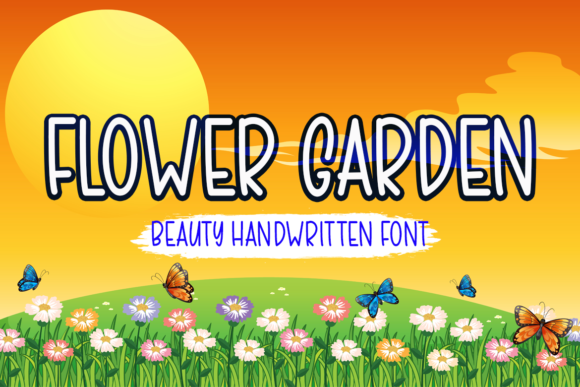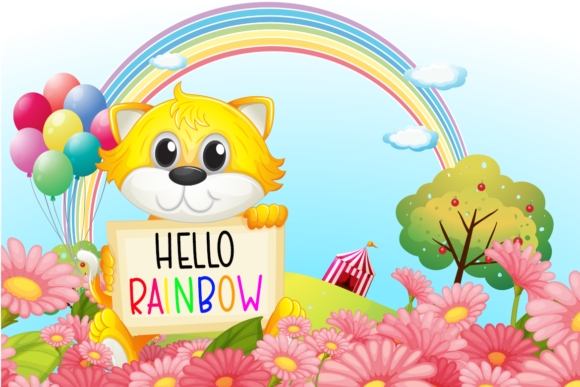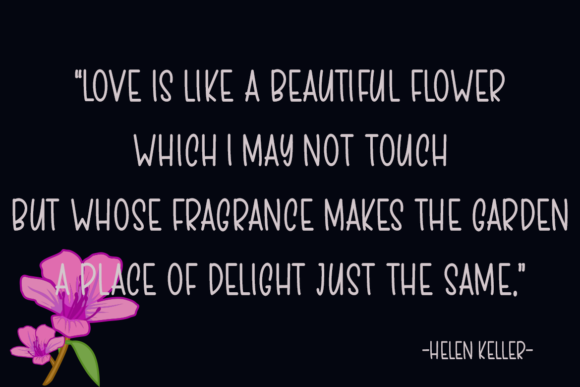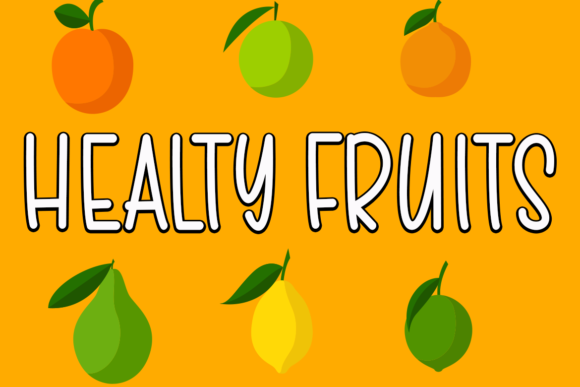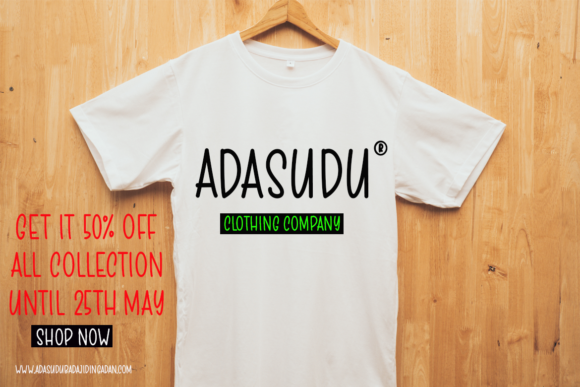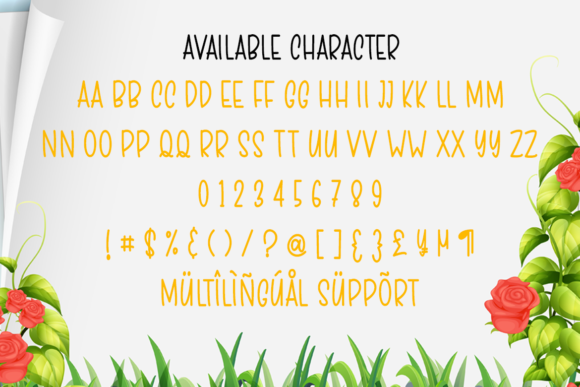
Flower Garden Font
About Flower Garden Font
Flower Garden is a simple, relaxed, and neat handwritten font that brings a touch of fun and casualness to your designs. With its clean and effortless style, this font is perfect for adding a fun and laid-back vibe to any creation. Incorporate Flower Garden into your projects, and you will love the results it brings.
The simplicity of Flower Garden is evident in its clean and straightforward letterforms. The font’s relaxed and casual nature captures a sense of ease and informality, making it a perfect choice for projects that require a fun and laid-back touch. It brings a sense of lightness and playfulness, creating a visually appealing and inviting atmosphere.
Flower Garden’s neat and clean style ensures clarity and readability in your designs. Each letter is carefully crafted with precision, maintaining a balanced and harmonious composition. It adds a touch of tidiness and structure while still exuding a relaxed and effortless charm.
Adding Flower Garden to your creations brings a refreshing and carefree element. It’s well-suited for various design contexts, such as social media graphics, posters, invitations, and more. The font’s simple and relaxed nature adds a sense of fun and casualness, making your designs visually appealing and engaging.
By incorporating Flower Garden into your projects, you infuse them with a sense of playfulness and light-heartedness. The font’s casual and neat style enhances the overall aesthetic, creating a welcoming and enjoyable experience for the viewer. It brings a touch of fun and relaxation, making your designs stand out with a delightful and inviting vibe.
In summary, Flower Garden is a simple, relaxed, and neat handwritten font that adds a fun and casual touch to your creations. Its clean and effortless style creates a laid-back and inviting atmosphere. Embrace the simplicity of Flower Garden and add it to your projects, experiencing the delightful results it brings to your designs. Let it infuse your creations with a sense of fun and ease, making them visually captivating and enjoyable experiences for your audience.